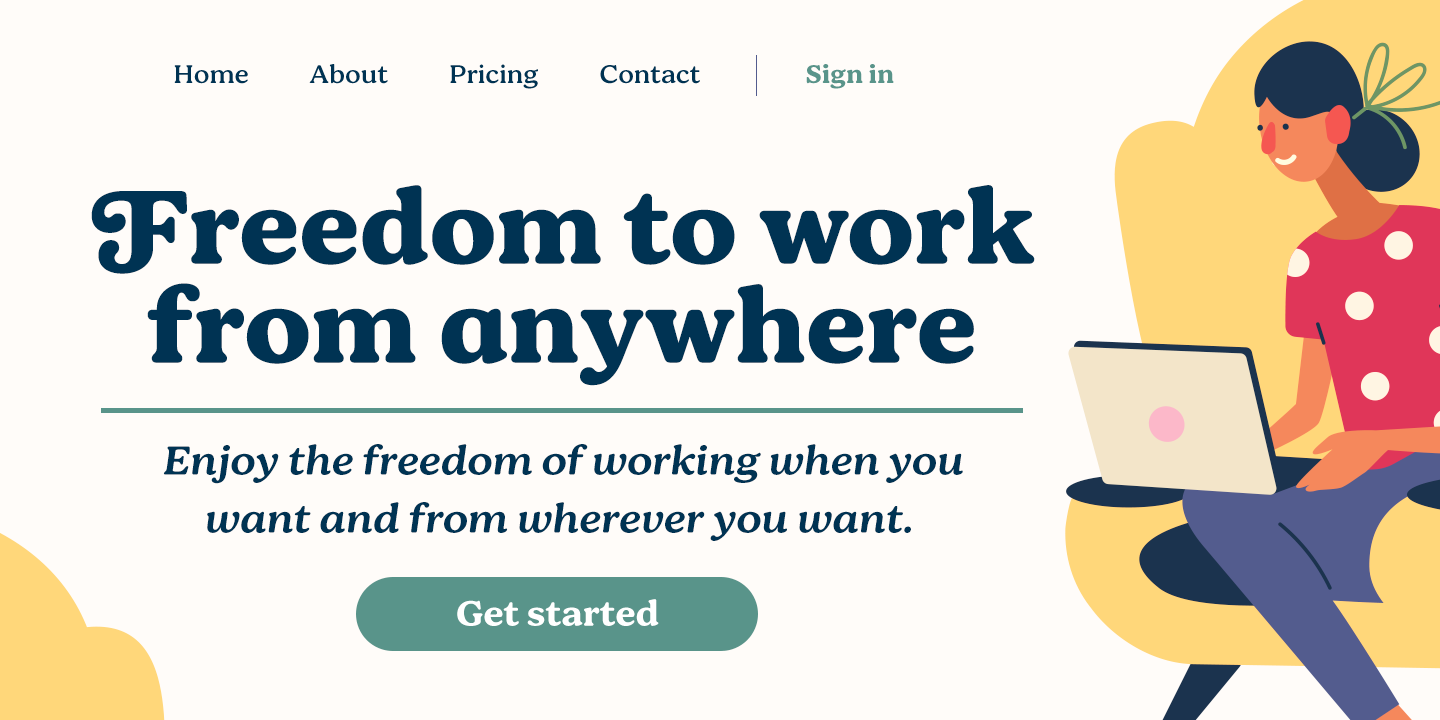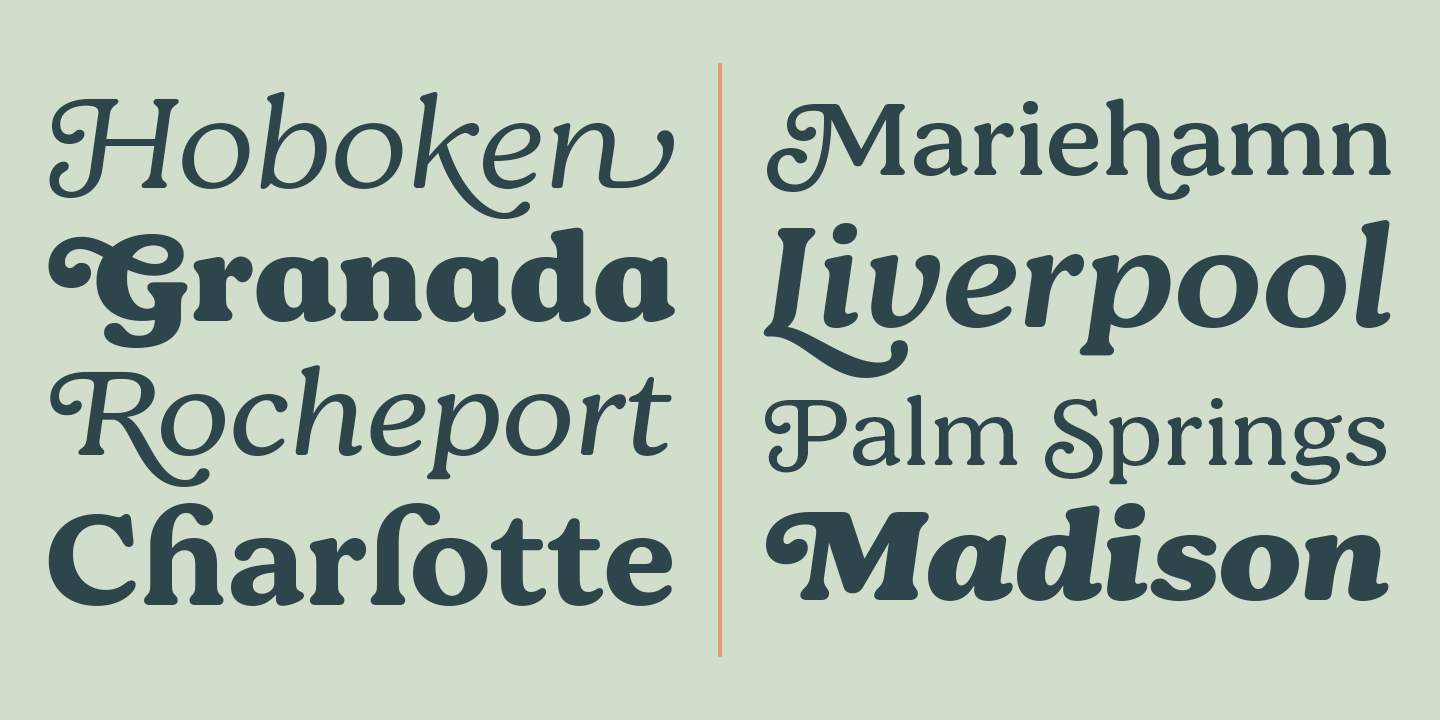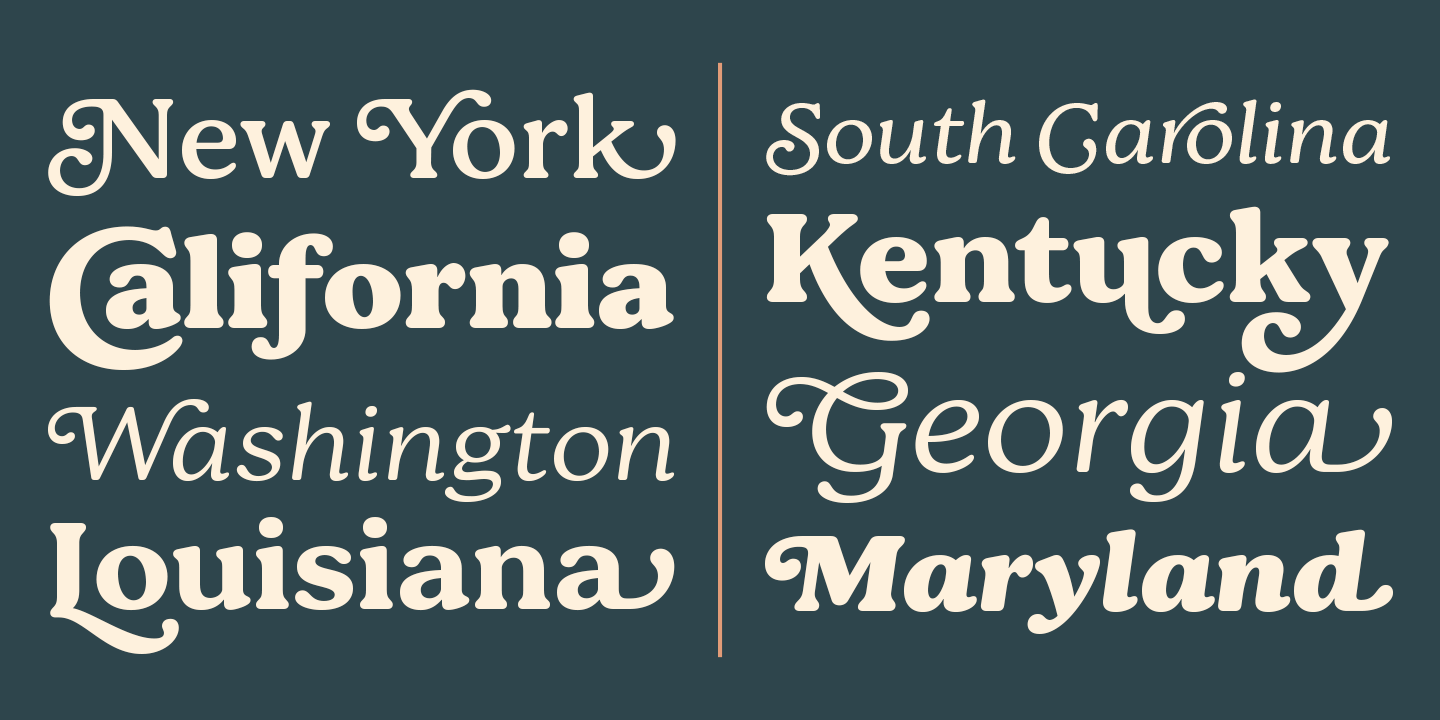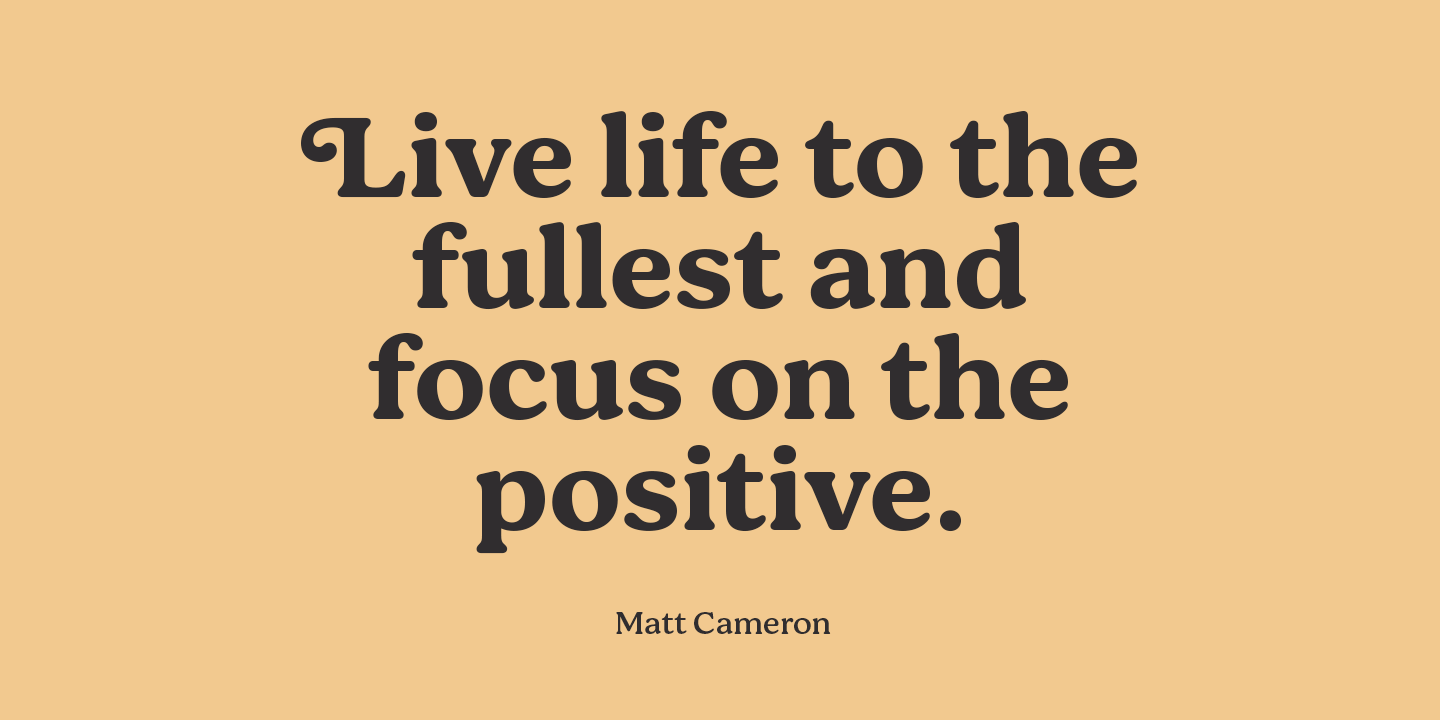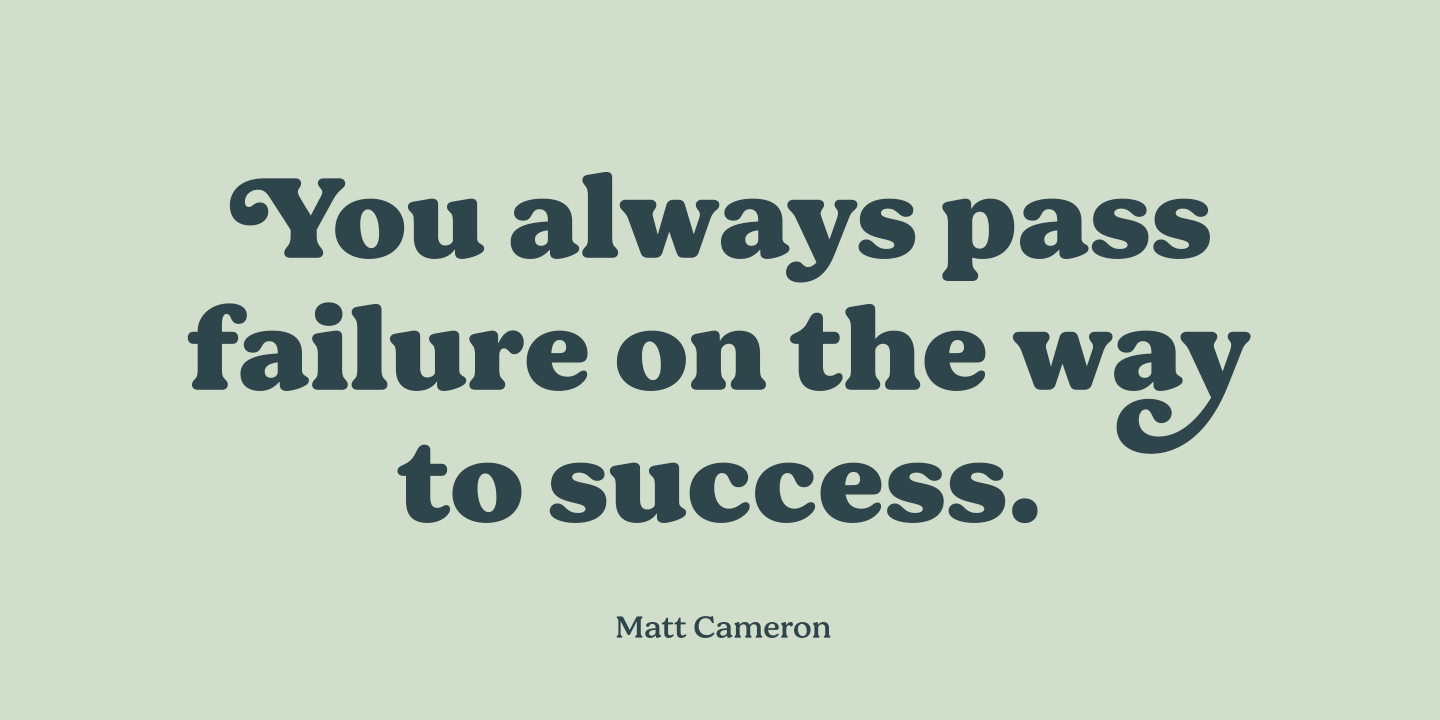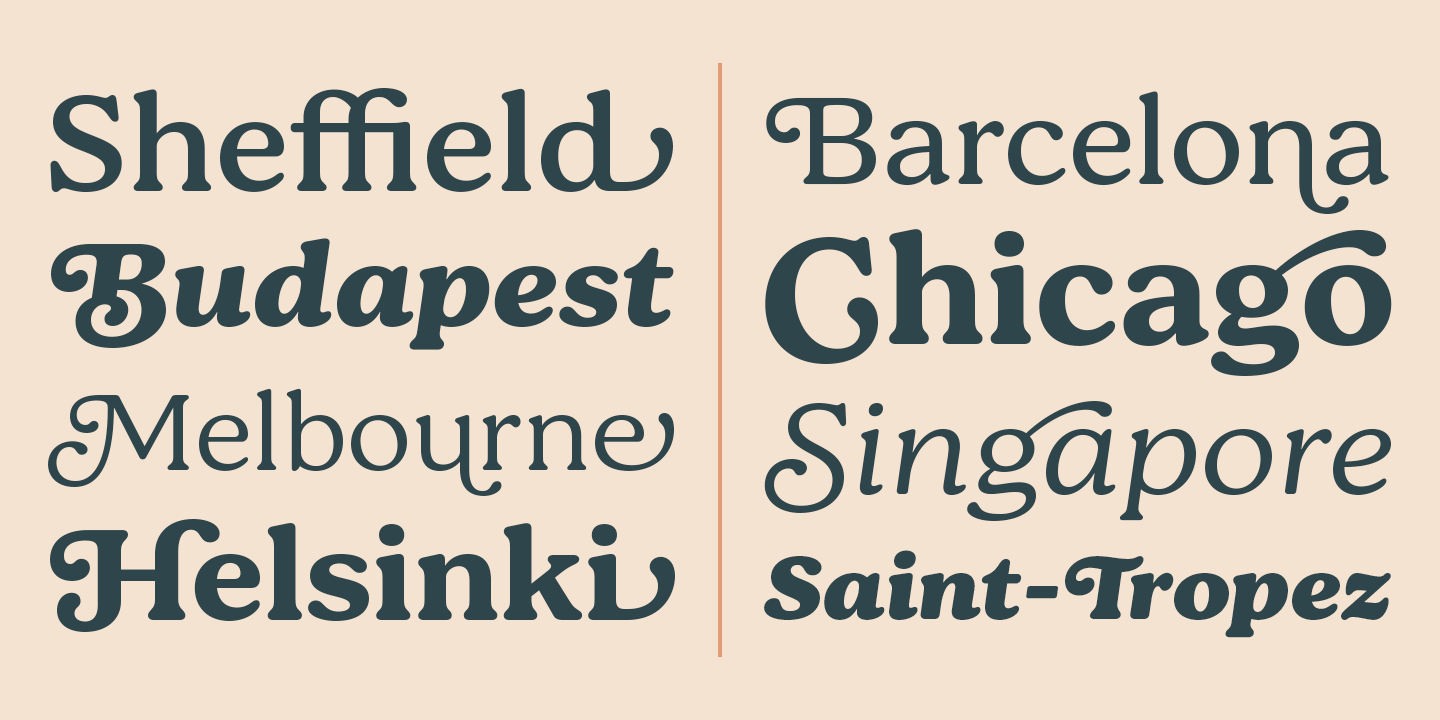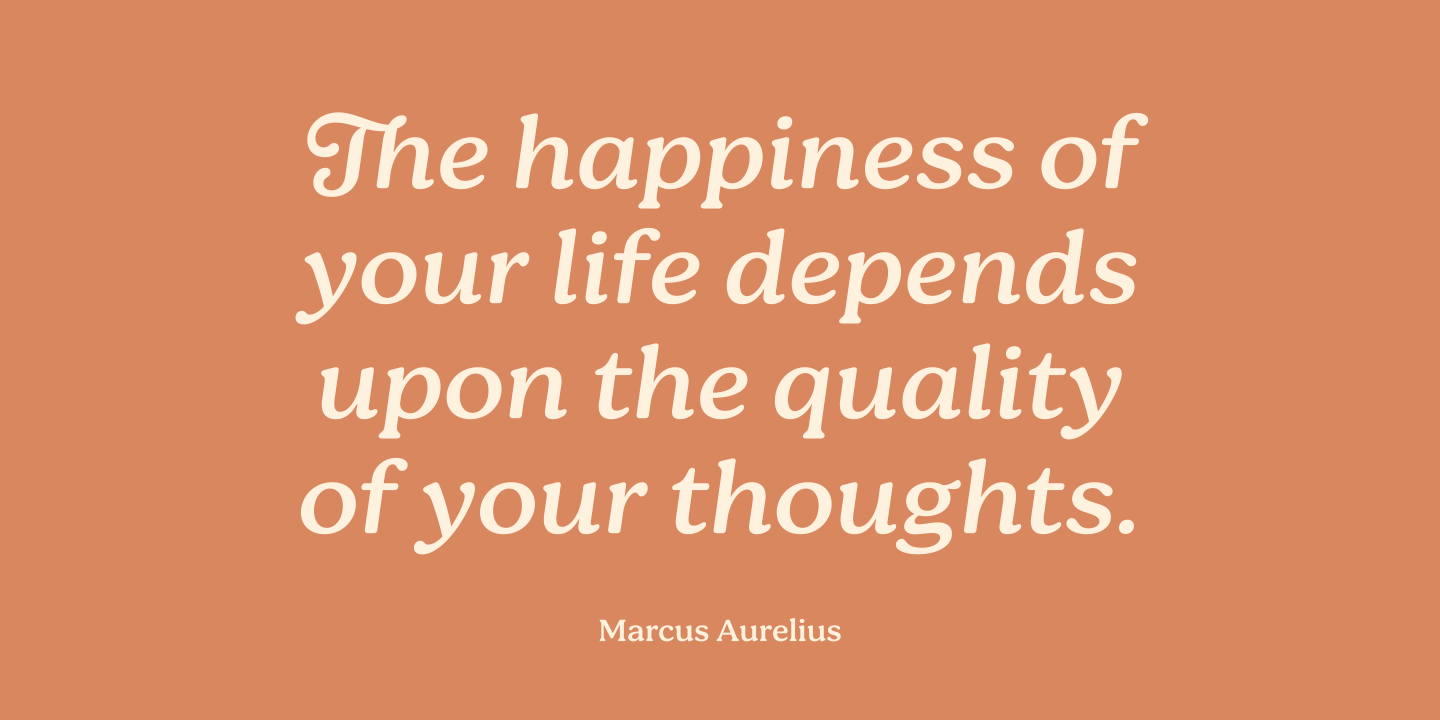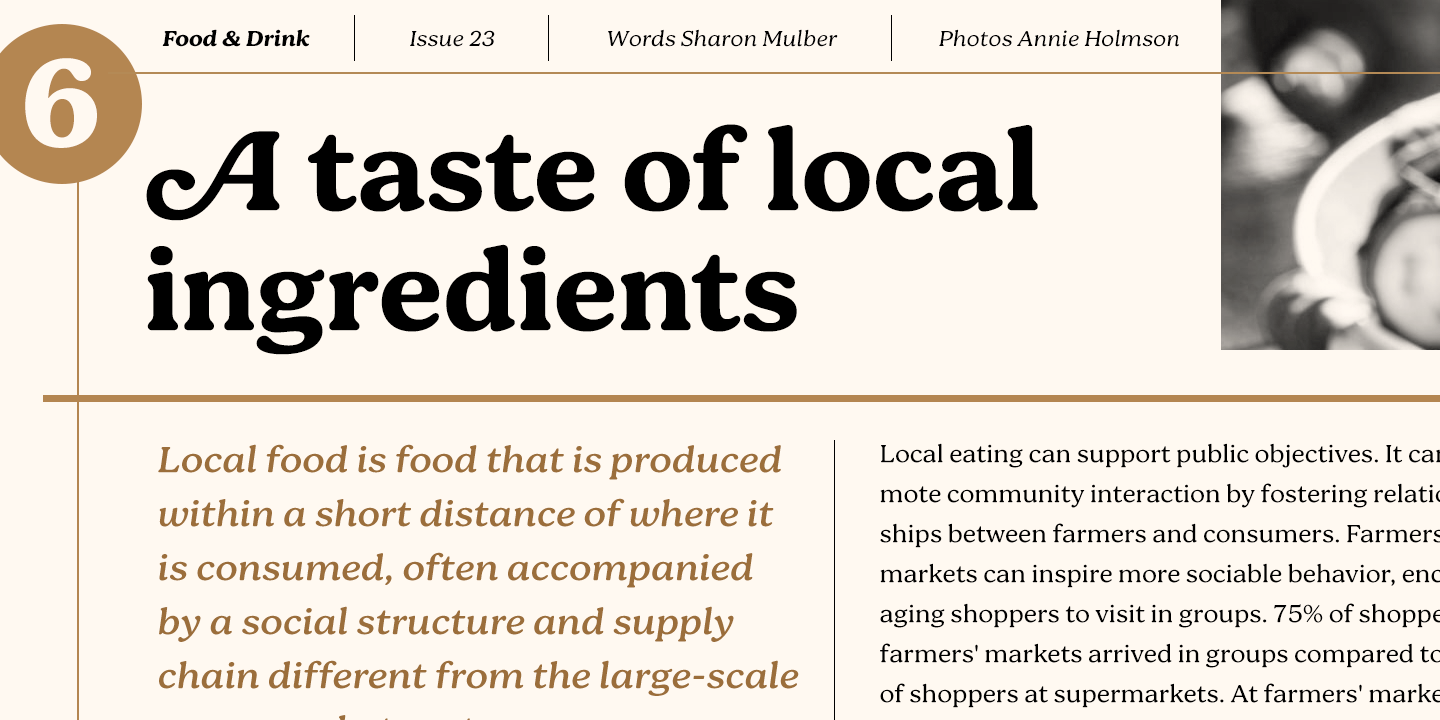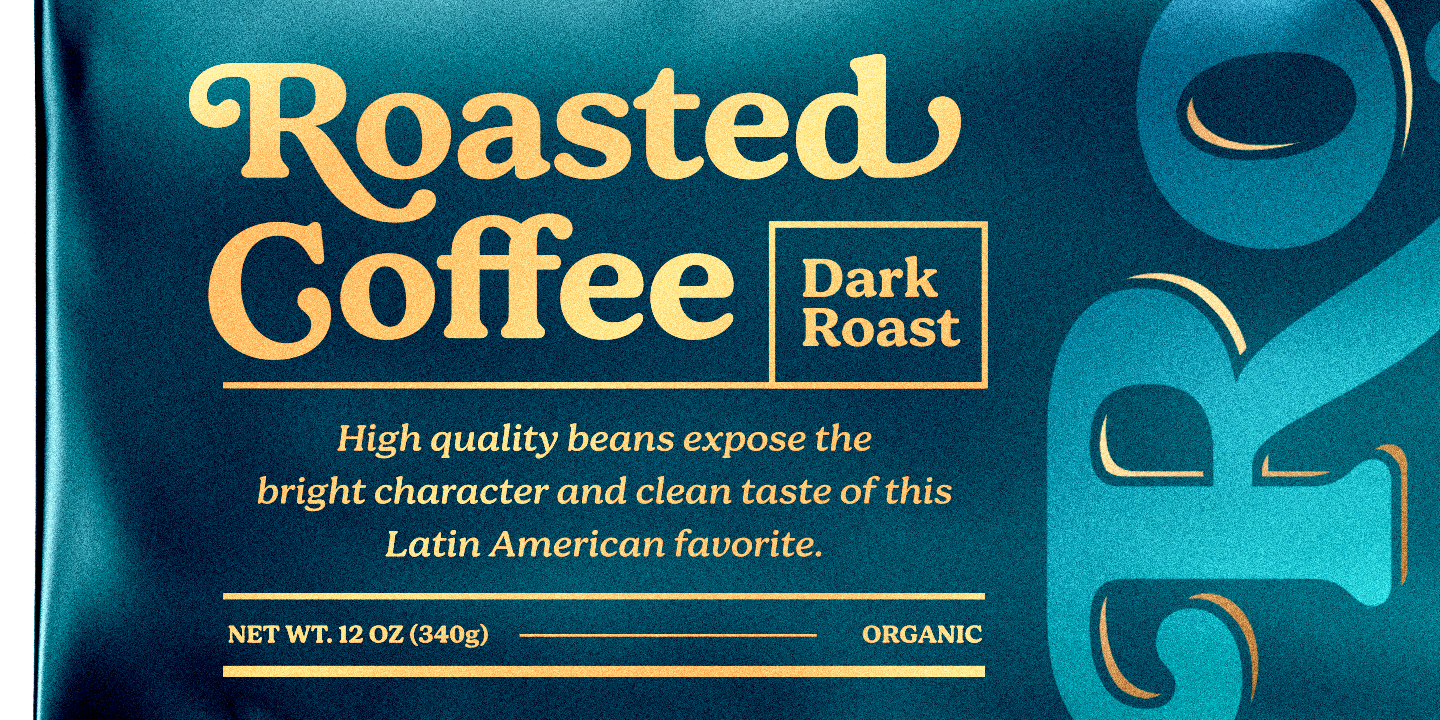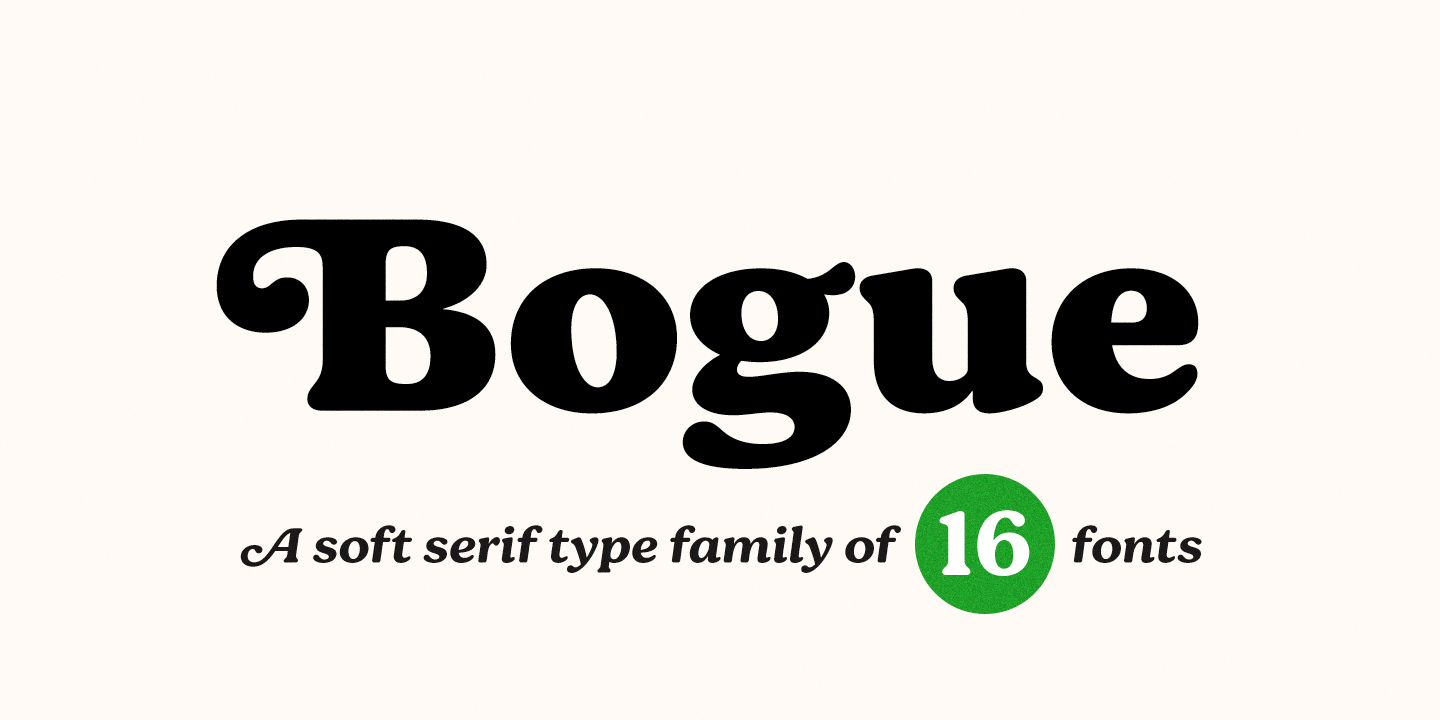
Bogue
Bogue is a soft serif type family of 8 weights and matching italics. The soft forms gives it a friendly and approachable character with a hint of retro feeling. Bogue comes with a lots of stylistic alternates that makes it very versatile in various uses like logos, editorial design, branding, web design, package design and much more. You can use it to create short powerful phrases and headlines and also use it in longer text like lead paragraphs and body texts. So if you are looking for a versatile soft serif font with a friendly character you have found it!